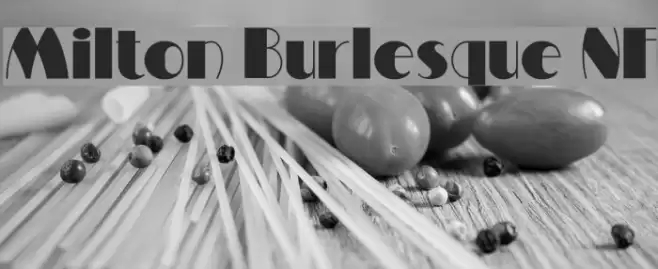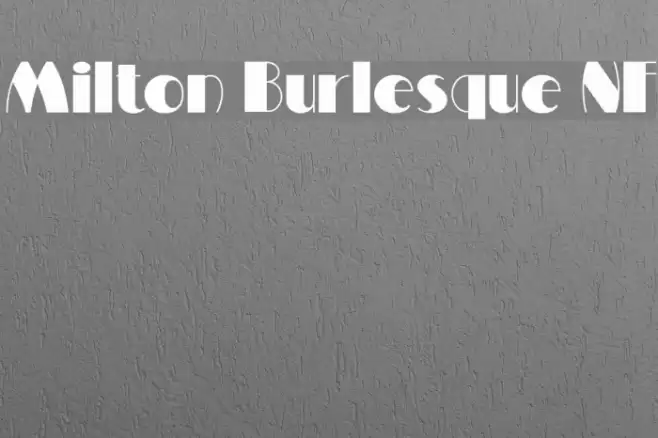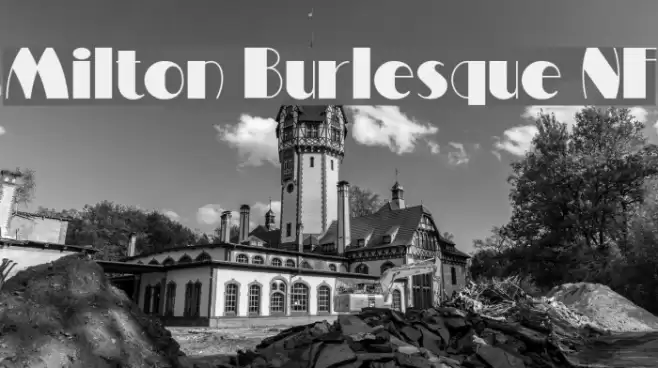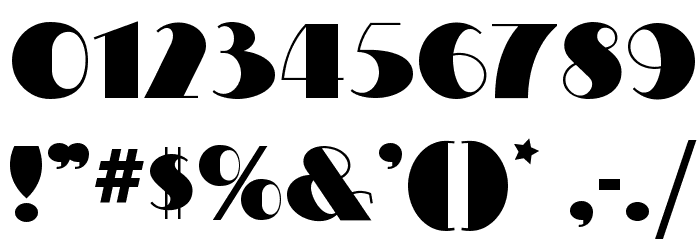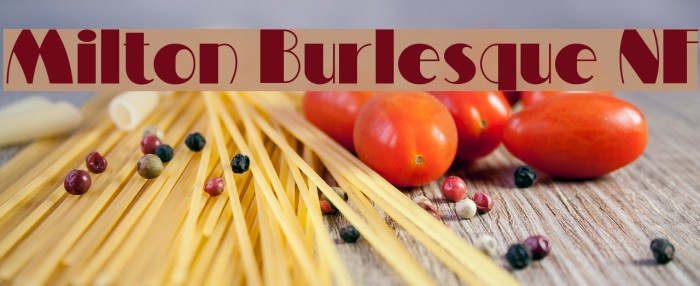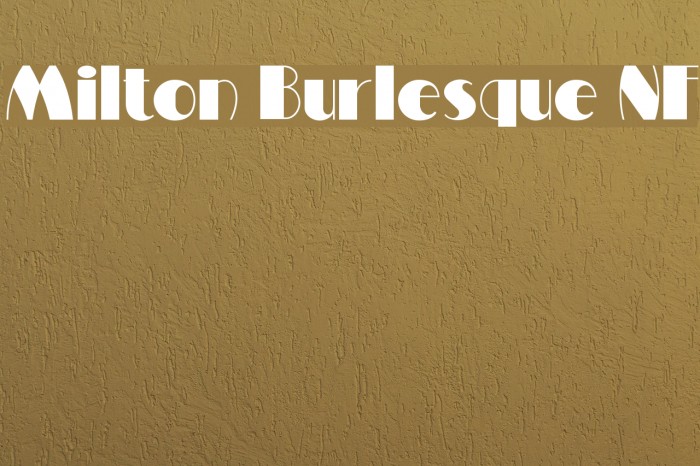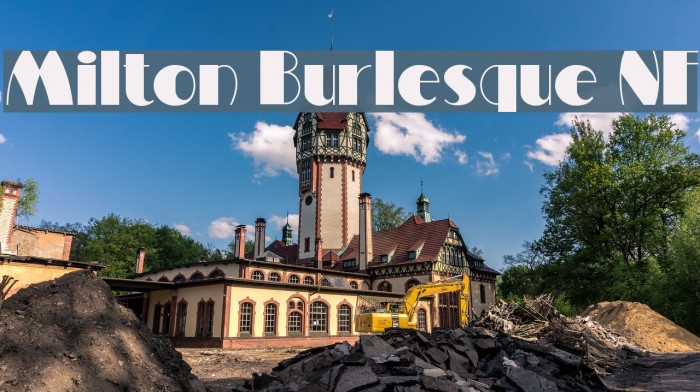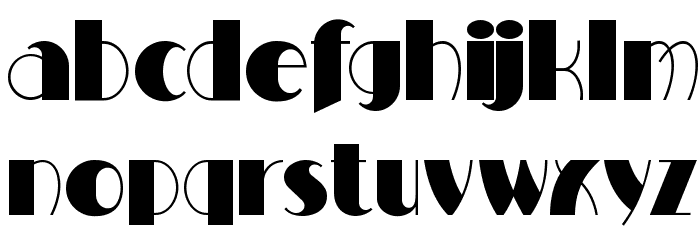
Milton Burlesque NF Font
Milton Burlesque NF Description
This font features a bold and theatrical style, characterized by its dramatic curves and sharp angles. The uppercase letters are particularly striking, with a mix of thick and thin strokes that create a sense of movement and flair. The lowercase letters maintain a playful yet sophisticated look, with unique shapes that add to the font's overall charm. Numbers and special characters are equally bold, making them stand out in any design. The font's distinct style is reminiscent of vintage circus or theater posters, making it ideal for projects that require a touch of nostalgia and elegance.
A bold, theatrical font with dramatic curves and vintage flair from Uncategorized fonts.
- Proposed Projects: Ideal for vintage-themed posters, theatrical event flyers, or branding that requires a bold, nostalgic touch.
- Overall Style: Vintage